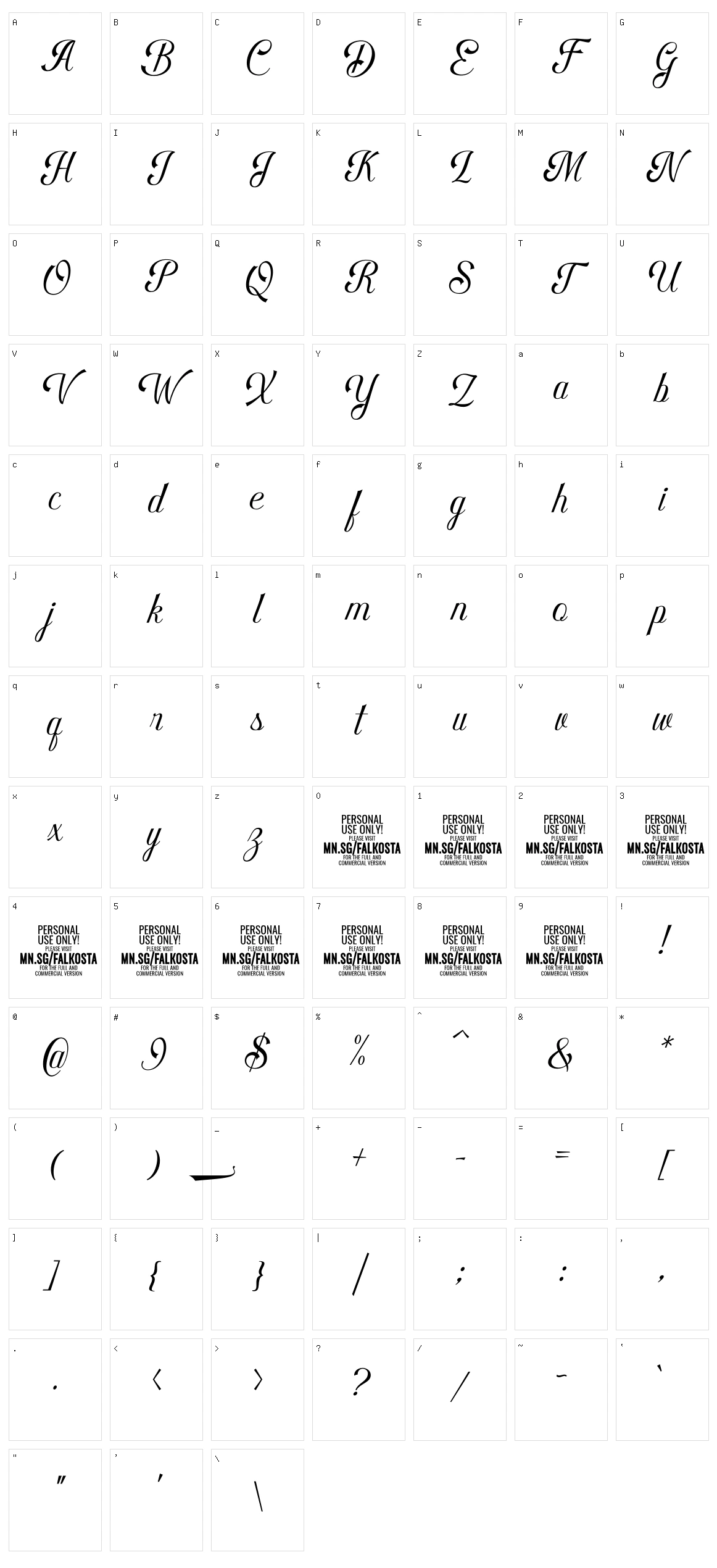
Falkosta Script is a decorative retro script typeface.
Drawn and created by Mans Greback in 2022, this cursive lettering has a distinct style and a strong personality. Use it for a vintage logotype, a print for your business or as a headline for an article.
Use underscore _ anywhere in a word to make a swash under the word.
Example: Love_
Write # or ¤ after any letter to make a swash version.
Example: Me# & You¤
Use multiple underscores for longer swashes.
Example: Superman_______
Falkosta Script is provided in four styles; Regular and Bold and each weight as Italic.
The font is built with advanced OpenType functionality and has a guaranteed top-notch quality, containing stylistic and contextual alternates, ligatures and more features; all to give you full control and customizability.
It contains all characters and symbols you'll ever need, including all punctuation and numbers.